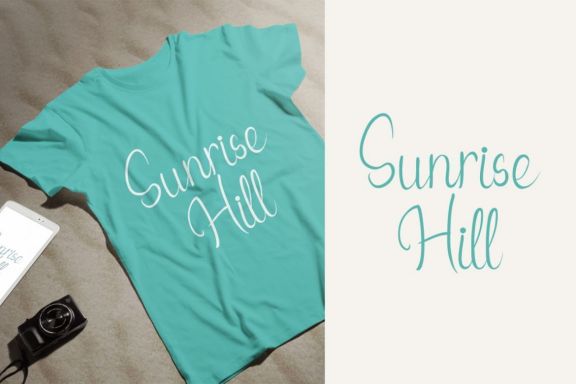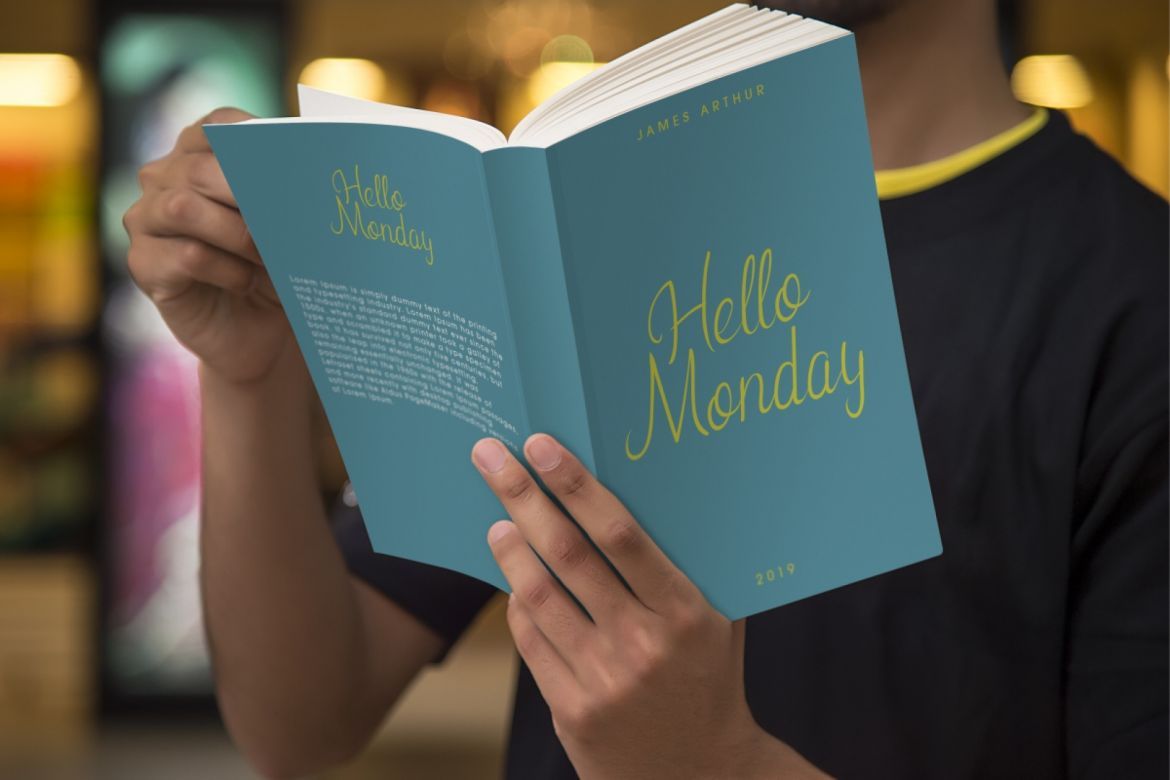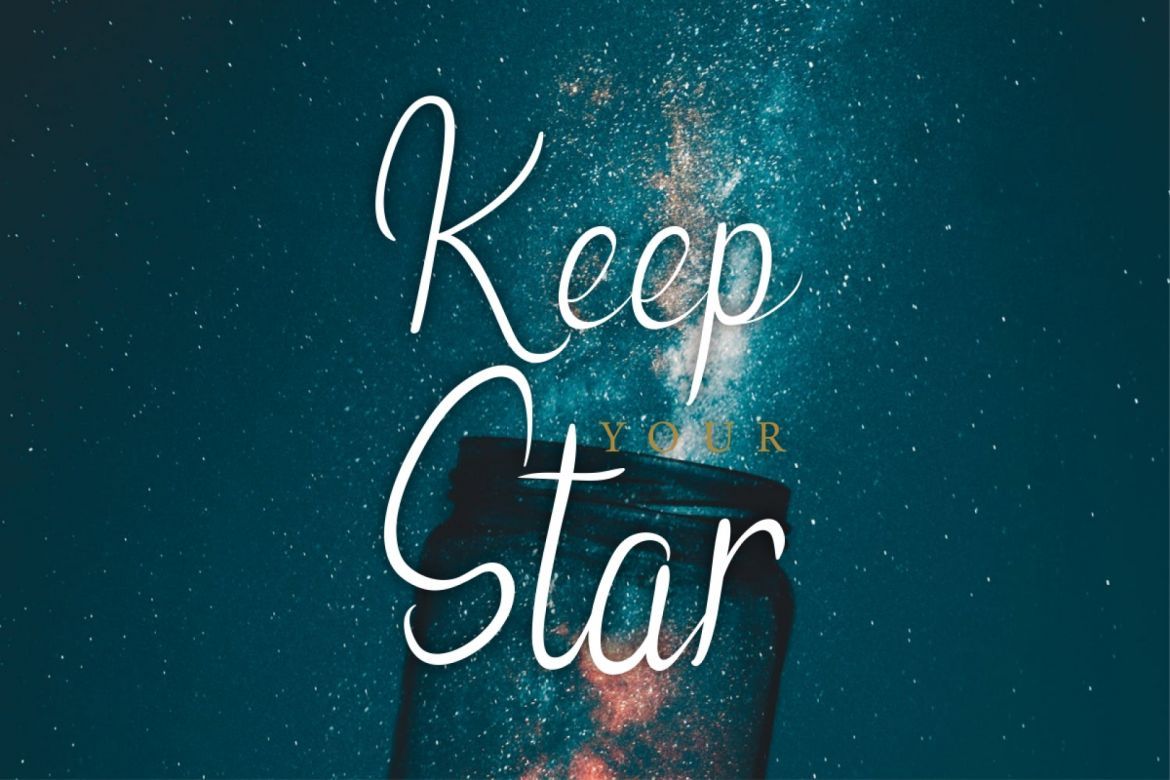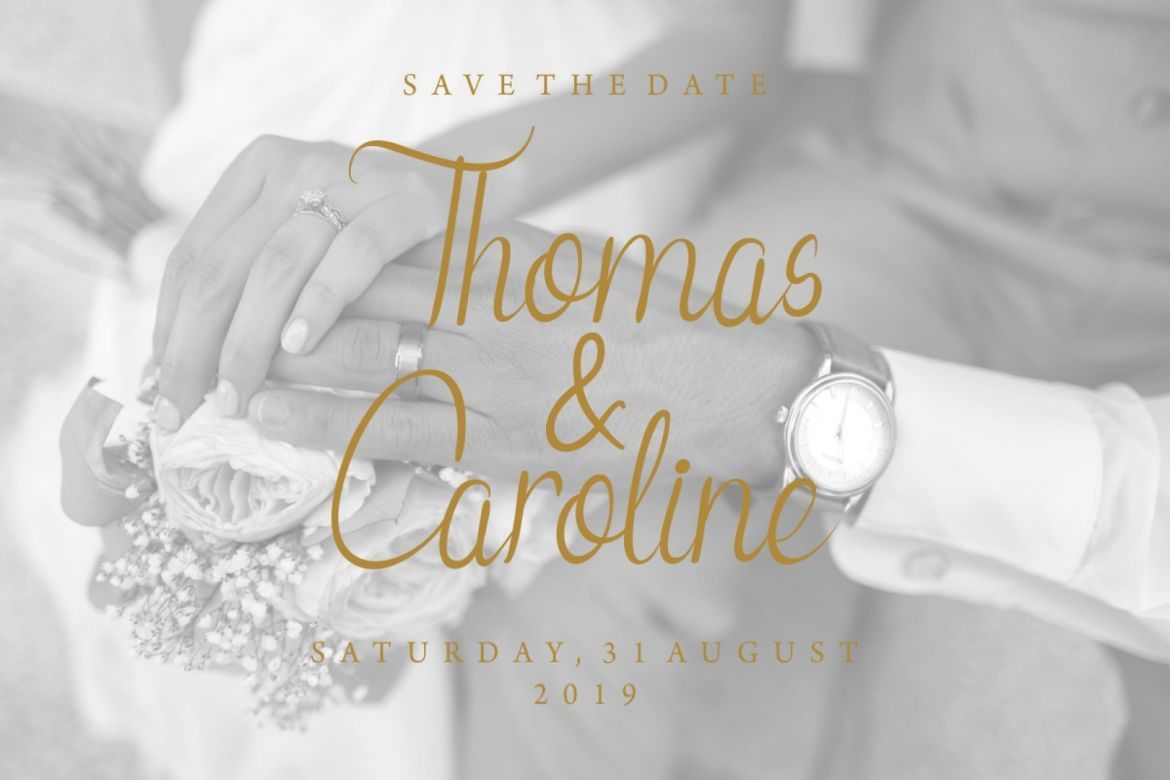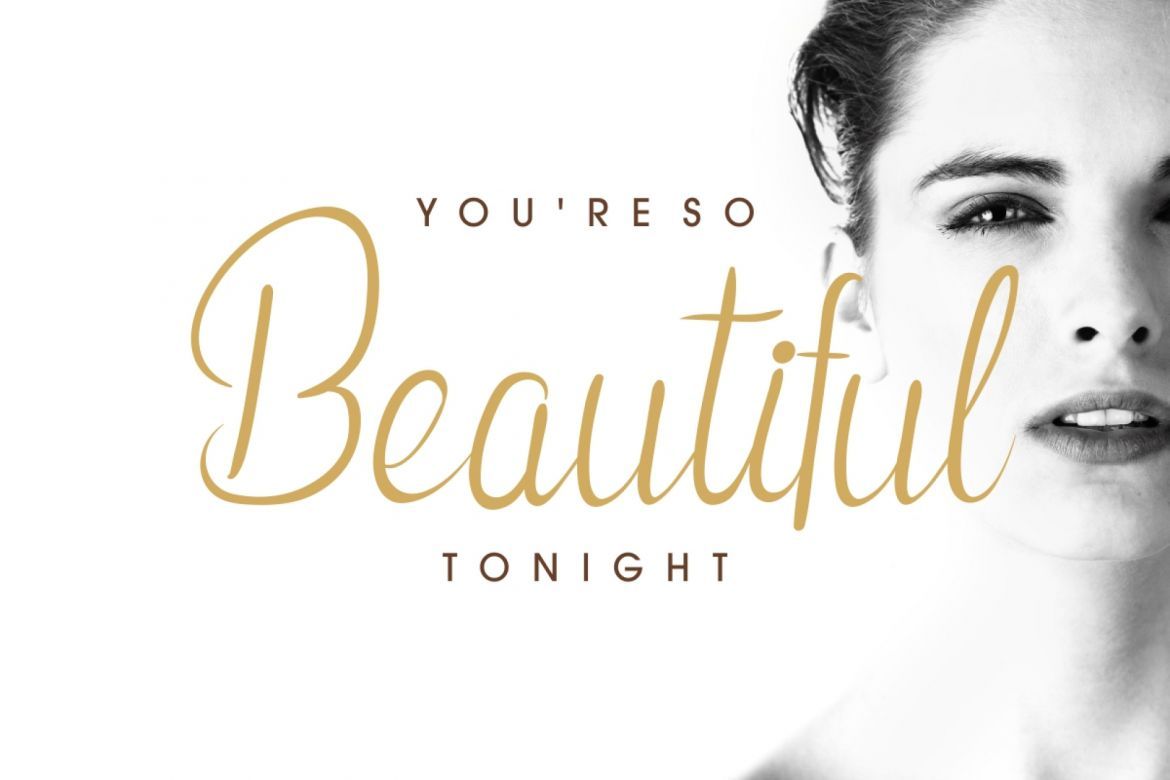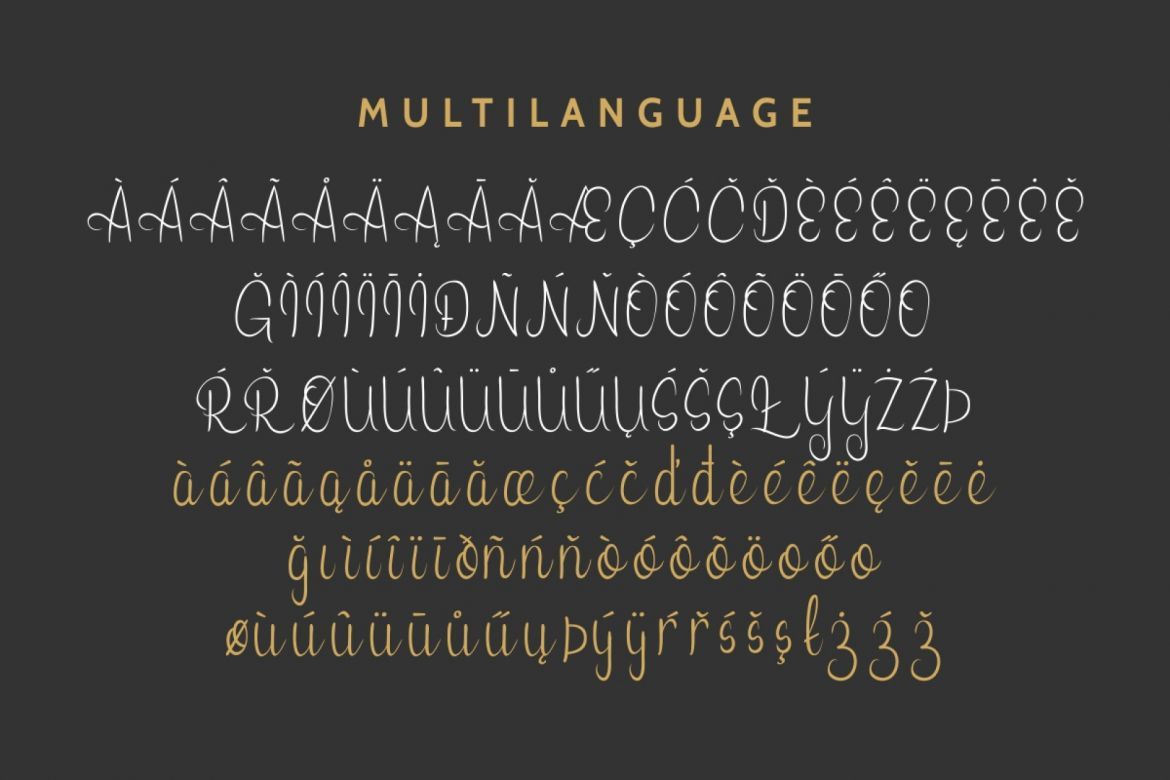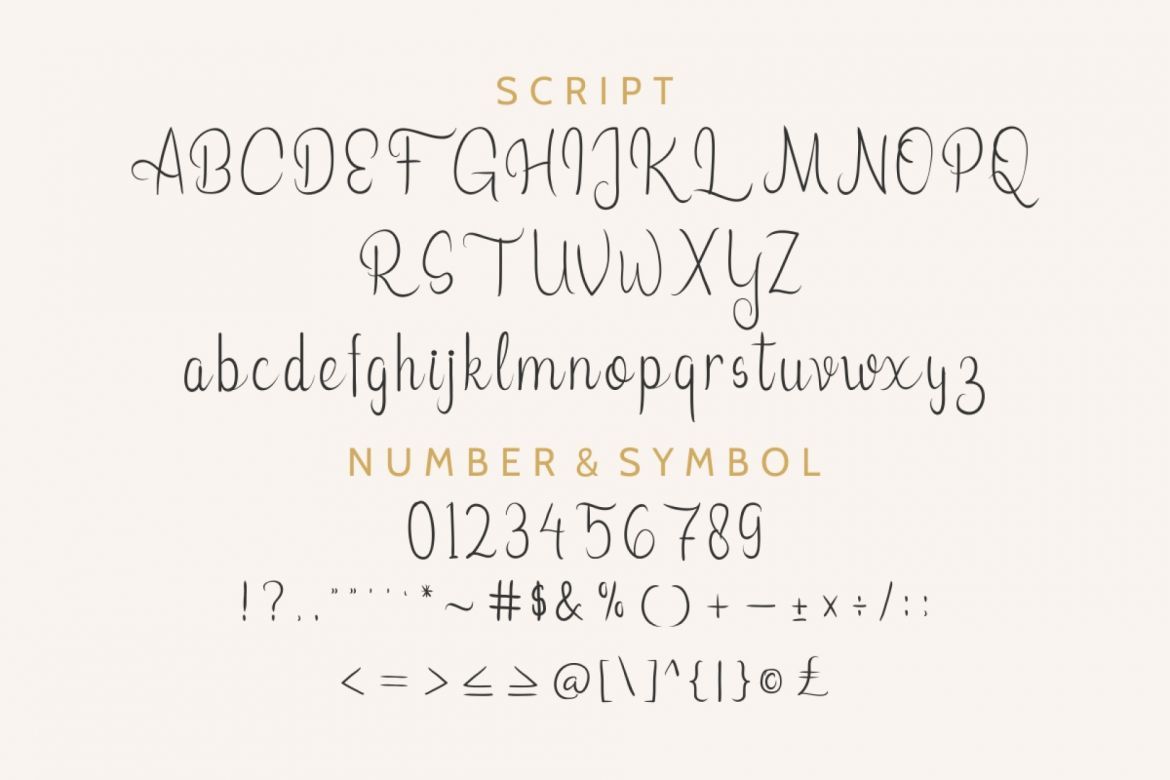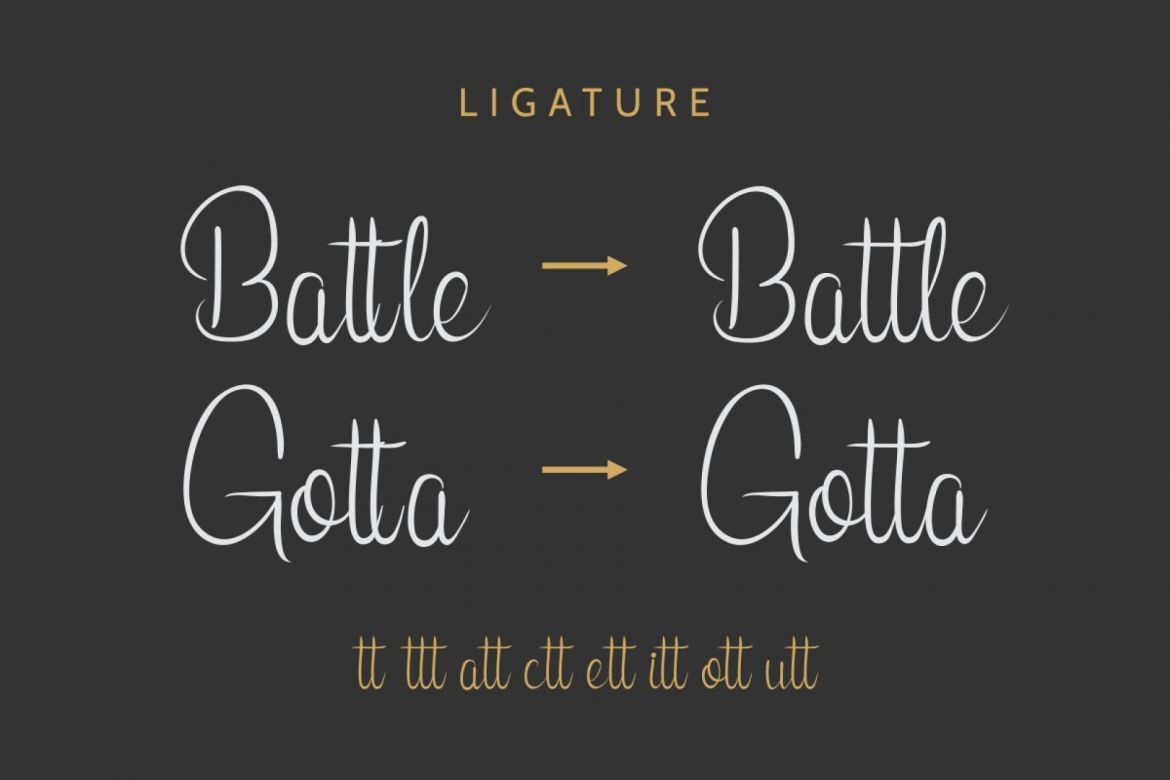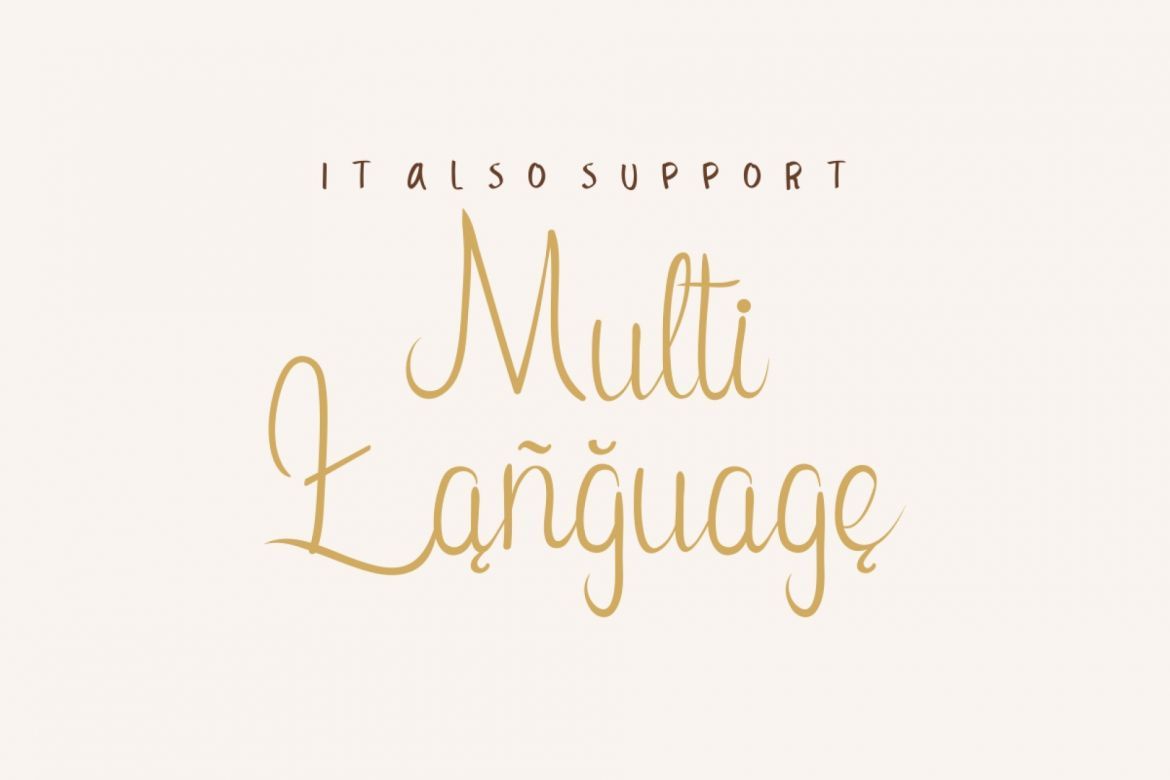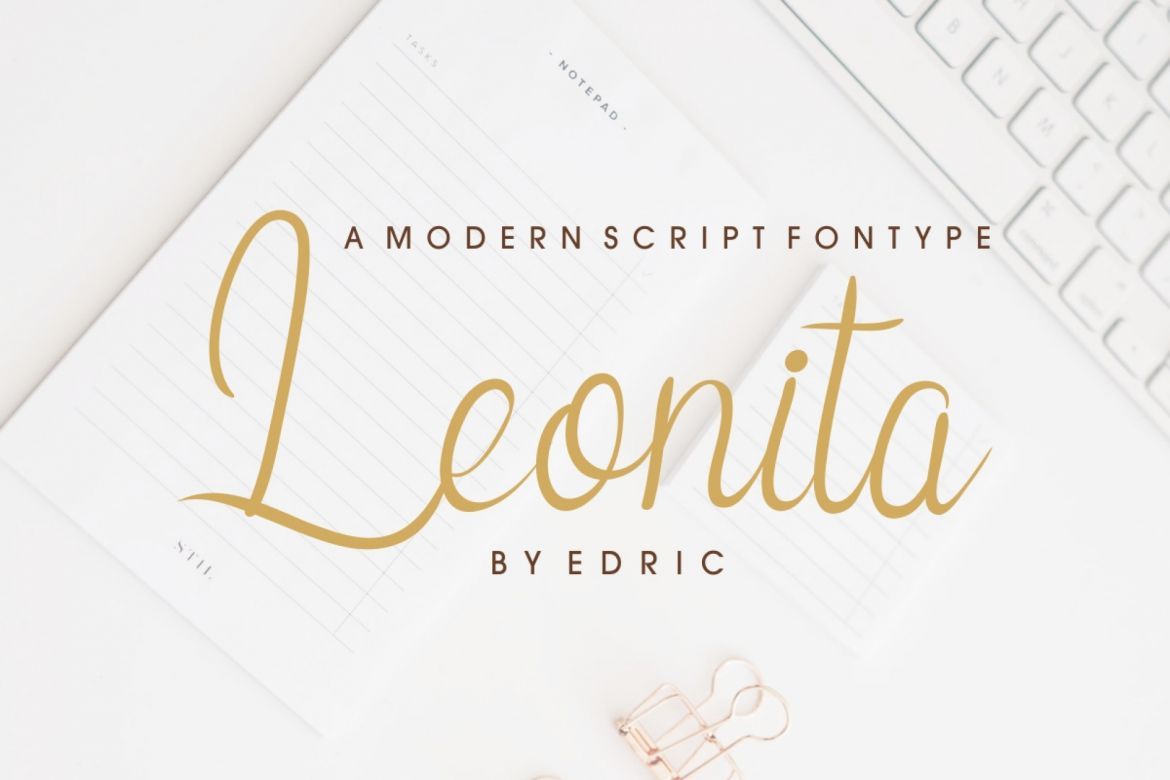
Leonita Font
Leonita is a natural handwriting display font. Perfect for branding, logotype, stationery, card, signage, flyer, brochure etc.
• 2 styles : regular and italic
• multi language support